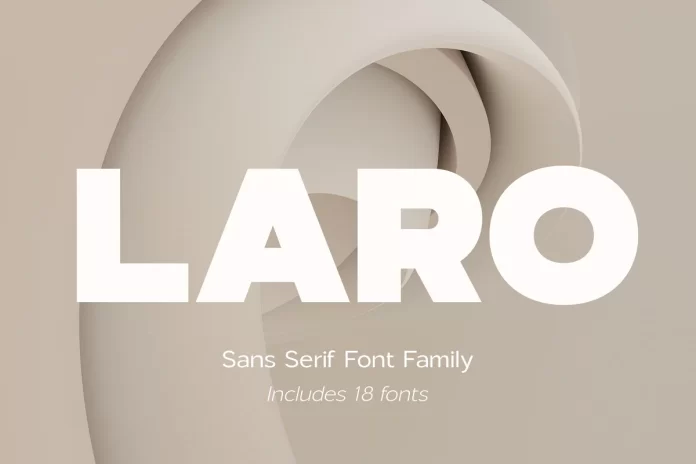
Laro Font Family
Laro Font Family is perfect for contemporary brand identity, modern editorial design, clean web interfaces, professional corporate communications, minimalist packaging design, sophisticated signage systems, progressive marketing materials, sleek business presentations, refined publishing projects, and versatile digital platforms.
Laro Font Family is exciting because it represents the perfect synthesis of contemporary design thinking and practical functionality, creating a typeface family that embodies clarity, sophistication, and the refined aesthetics of modern communication design. This font brings contemporary elegance and design intelligence to any project, making it ideal for organizations and brands that value both visual sophistication and functional excellence. Its balanced character and versatile design create an atmosphere of professional confidence that resonates with discerning audiences across diverse industries and applications.
Laro Font Family includes thin, light, regular, medium, bold, and black weights, each available in roman and italic styles with comprehensive character support and contemporary symbols, providing designers with extensive flexibility for creating sophisticated typography and comprehensive brand systems.
Whether you're developing comprehensive brand identity systems, designing editorial publications, or creating sophisticated digital interfaces, Laro Font Family delivers exceptional versatility and contemporary sophistication. The font maintains excellent legibility across all applications, making it ideal for complex typographic hierarchies and multi-platform brand consistency.
Design professionals choose Laro Font Family for its ability to project intelligence and sophistication while providing the comprehensive weight range needed for complex design systems. The font's contemporary character makes it particularly suitable for design studios, consulting firms, and progressive organizations requiring sophisticated typographic solutions.
Each character demonstrates thoughtful attention to optical balance and contemporary aesthetics, featuring the refined precision and versatile functionality that defines today's most successful contemporary typography and professional communication design.